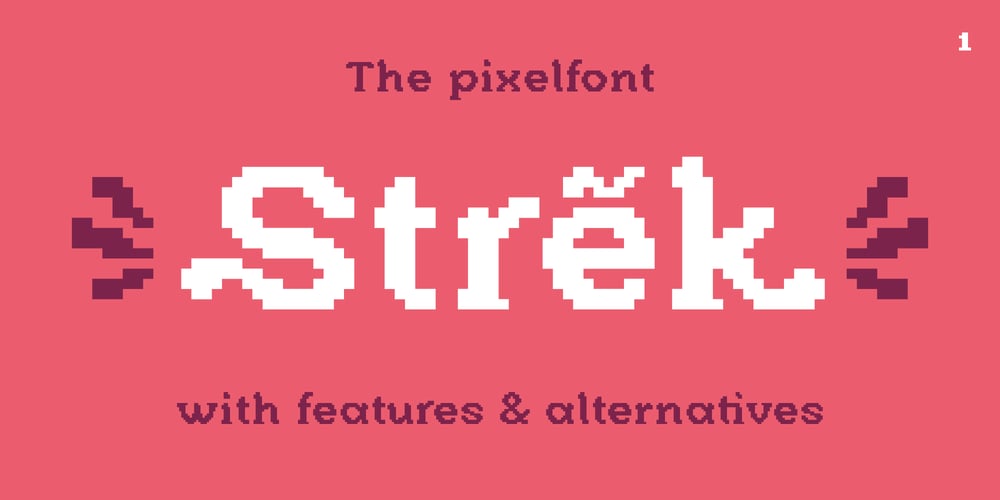
Strek
Strek font
Strek Font Family was designed by Max Glimm and published by Max Glimm Type. Strek contains 1 styles and family package options. Introducing “Strek,” a cutting-edge pixel font that seamlessly merges retro charm with contemporary flair. Crafted for the digital age, this font is a nostalgic nod to classic pixel art, revitalized with a modern twist. Boasting a diverse array of glyphs, “Strek” is a versatile typographic tool, capable of accommodating multiple languages with ease. What sets “Strek” apart is its integration of advanced OpenType features. With the ability to automatically incorporate alternative decorative letters at the onset and conclusion of each word, “Strek” adds a unique touch of sophistication to any design. Furthermore, its extensive ligatures and alternate characters enhance its visual appeal, offering designers unparalleled creative freedom. The applications of “Strek” are as boundless as its design potential. From graphic design to game development, web and app creation to print media, this font seamlessly adapts to diverse contexts with unmatched versatility. When harnessed with OpenType features enabled, “Strek” becomes a formidable tool for crafting captivating headlines and bespoke branding elements, perfect for making a lasting impression in any project. However, “Strek” is not limited to flashy aesthetics alone. With OpenType features disabled, this font retains exceptional readability, making it equally suitable for body text and copywriting. Whether used for immersive gaming experiences or polished editorial layouts, “Strek” delivers clarity and legibility without compromising on style. Unlocking the full potential of “Strek” requires software that supports OpenType features, such as Adobe InDesign. With features like “Automatic Positional Forms” readily accessible, users can effortlessly harness the font’s dynamic capabilities to bring their creative visions to life.